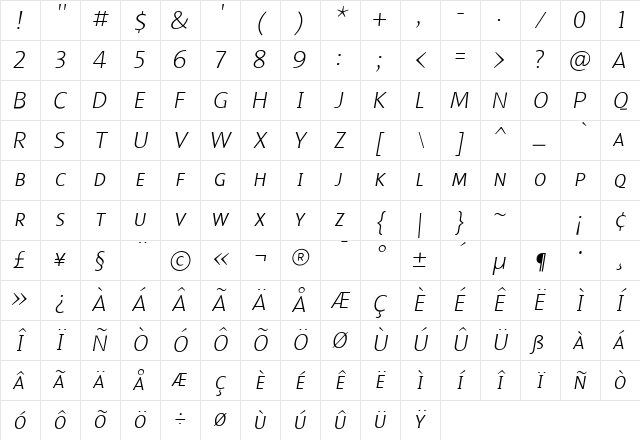
Complete Malcom Italic glyph index. Displaying only characters natively supported by Malcom Italic font.
Malcom is a composed and adaptable typeface that performs quietly and consistently across a wide range of design contexts. The slanted form adds forward momentum and visual energy.